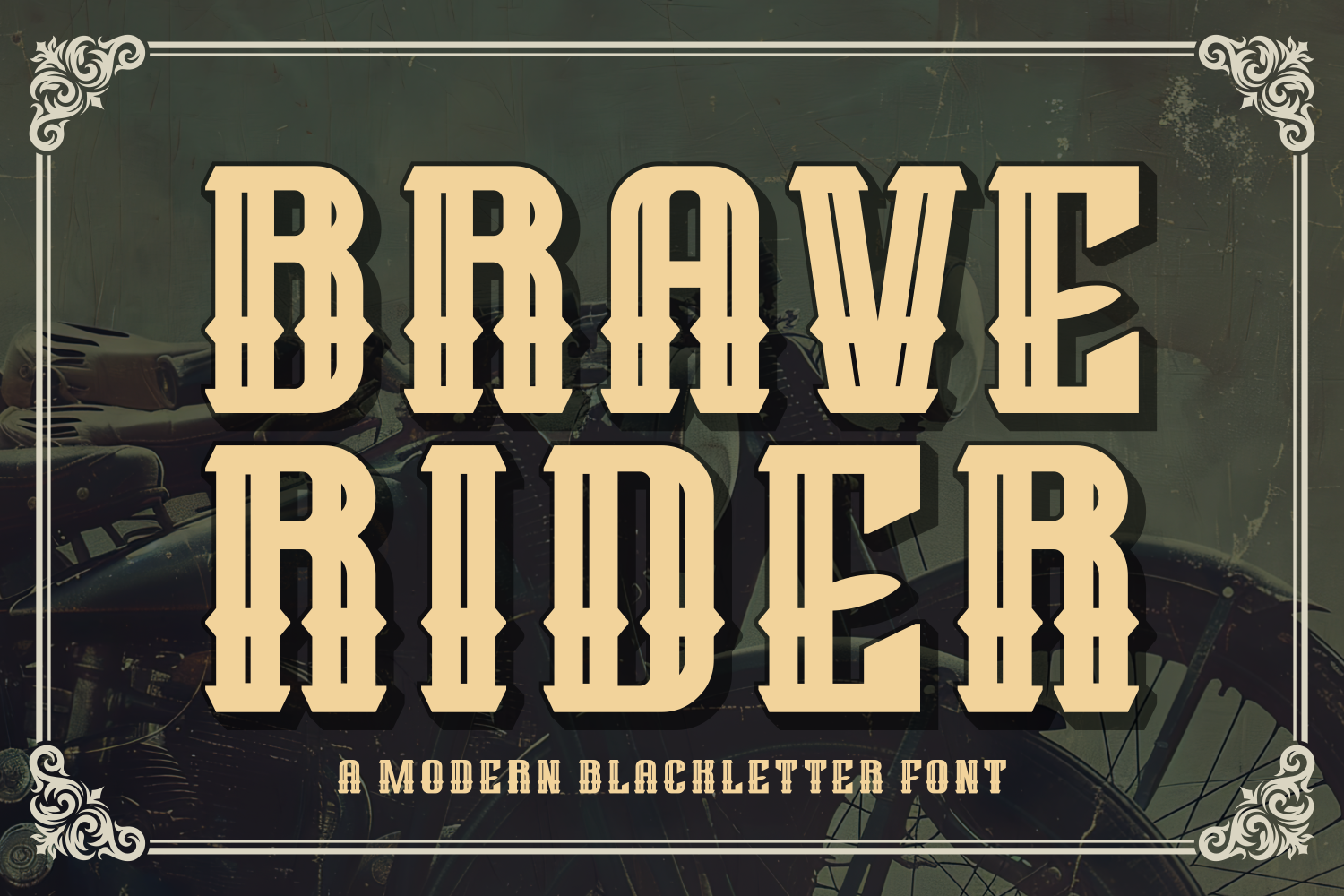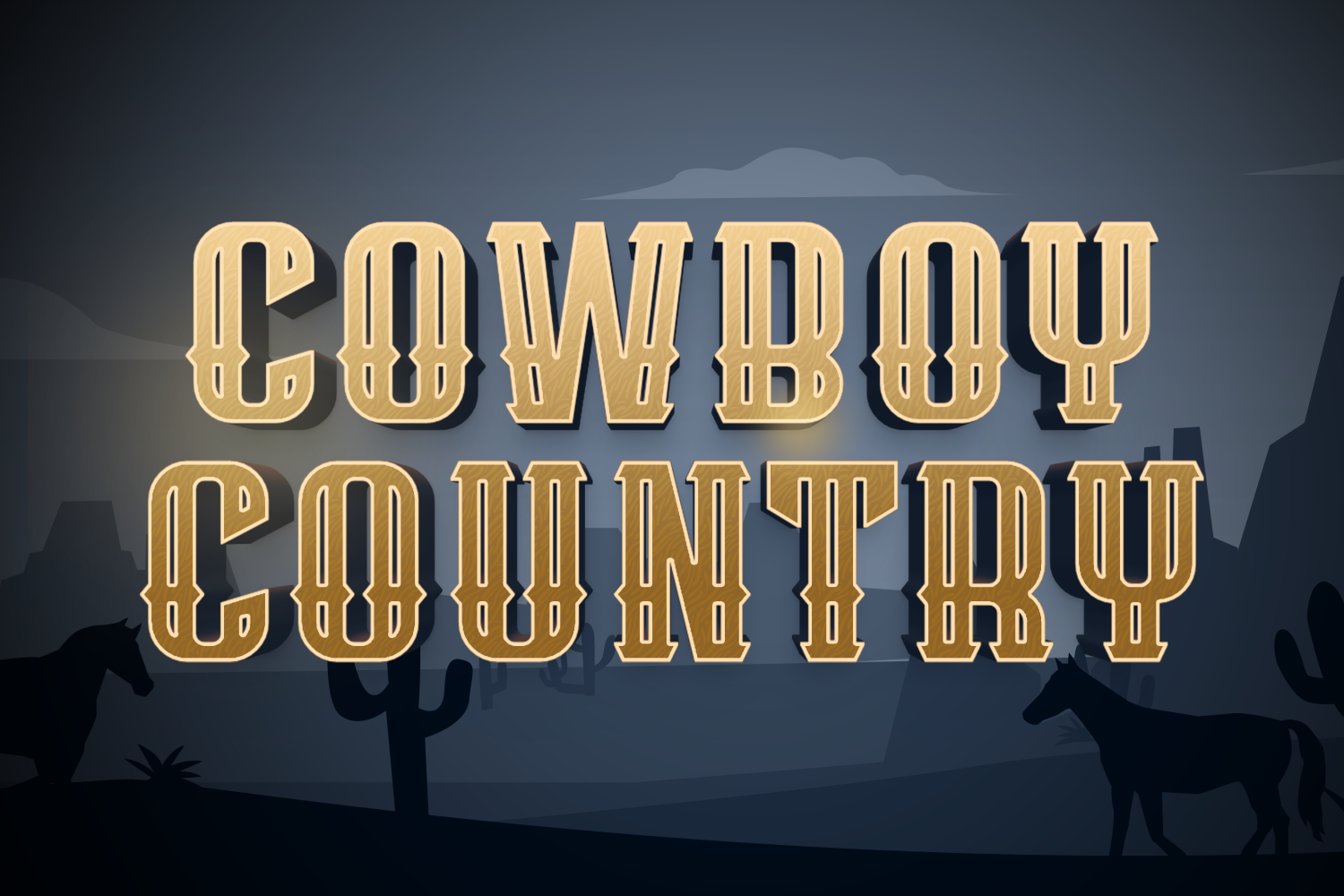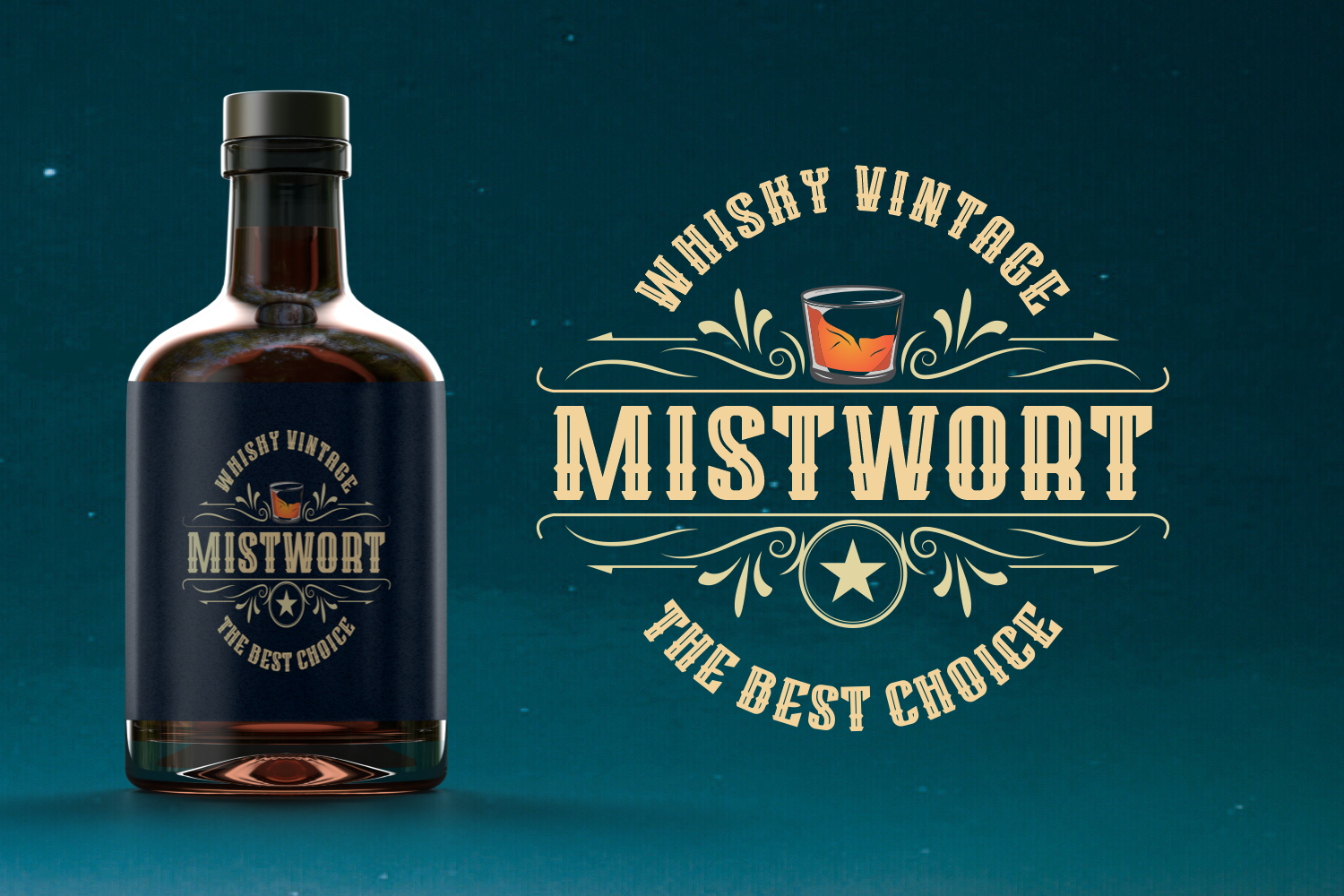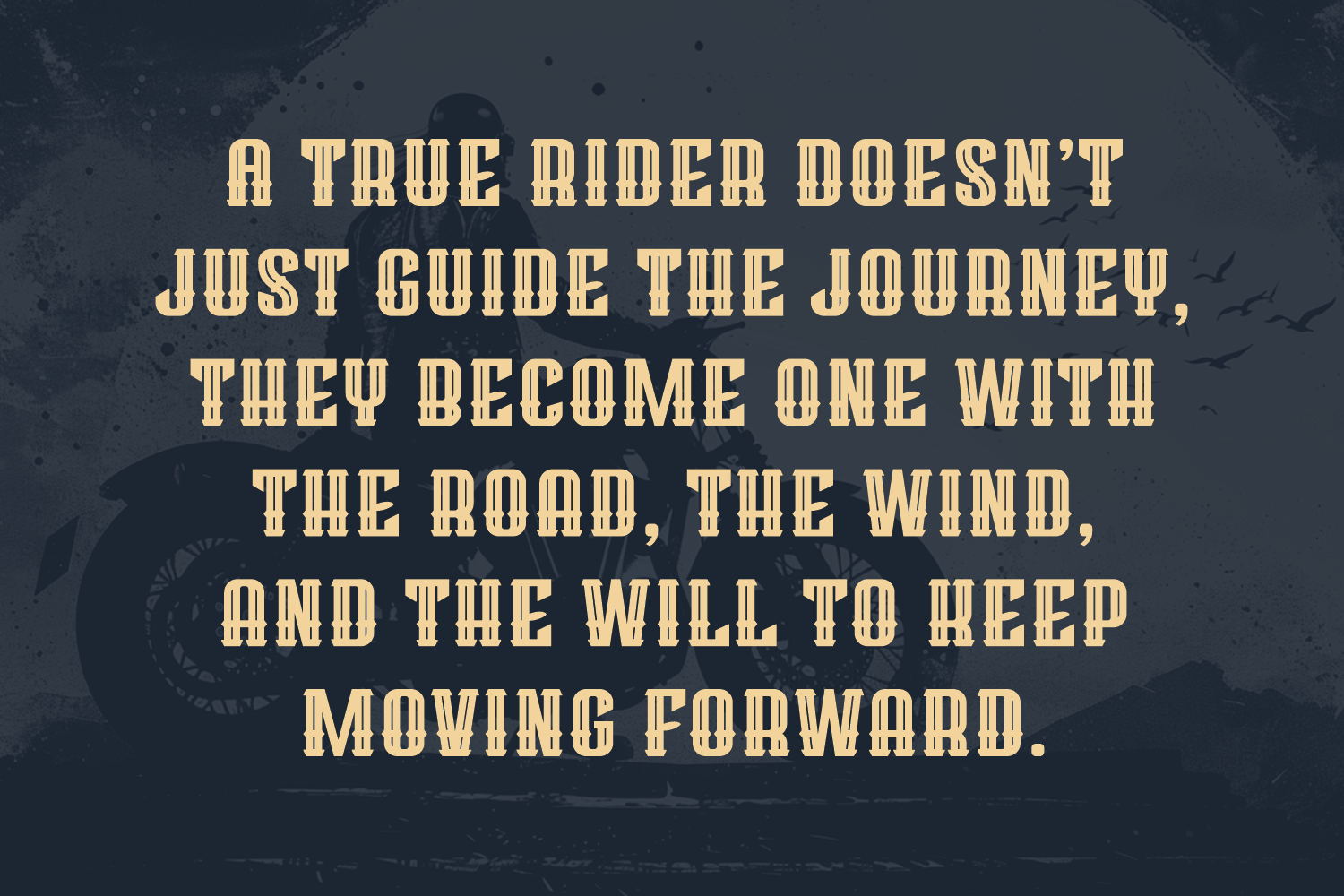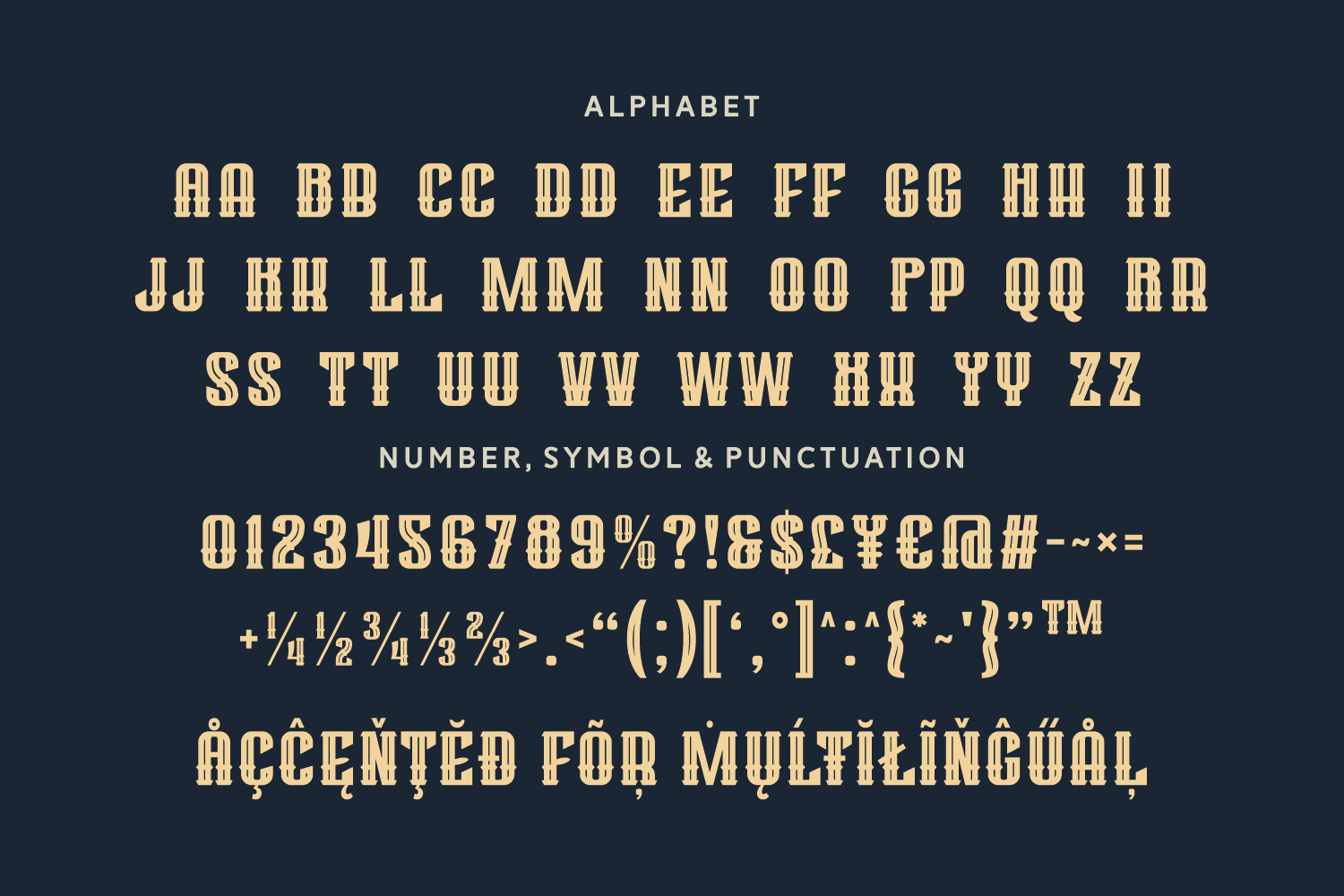
Brave Rider is a modern blackletter font infused with Western flair and vintage grit. Its blocky, adventurous characters are perfect for biker posters, whiskey labels, and outlaw-inspired designs. The font bridges tradition and rebellion, delivering a strong typographic punch with edge and style.